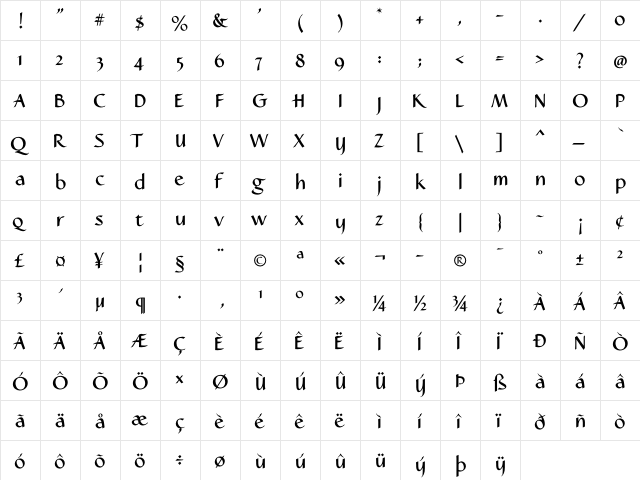
Caterina Bold Regular
Design Context for Caterina Bold Typeface
Caterina Bold takes a measured approach to typography — its balanced proportions and neutral character make it a reliable workhorse for both digital and print work. The heavy weight commands attention and anchors typographic hierarchies.